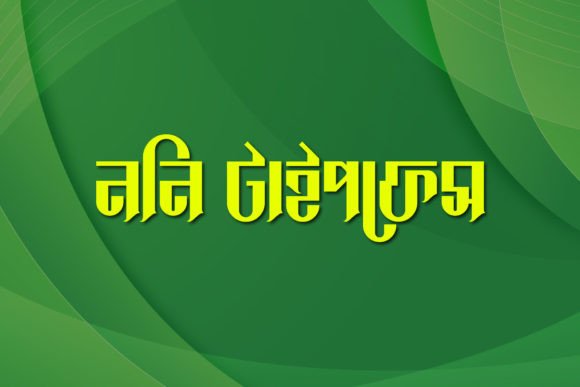
Prepare to be entranced by Noni Font, a display font that commands attention with its air of boldness and grace. This font, carefully crafted by the talented Abuhasnat, is a typographic masterpiece that captivates the eye with its distinct glyphs and meticulously designed characters, creating a visual symphony that dances across your screen.
Immerse yourself in the versatility of Noni Font, a font that effortlessly adapts to a myriad of creative endeavors. Unleash your inner artist and watch as your title headings transform into captivating centerpieces, your chic T-shirt graphics come to life with a modern edge, and your movie or drama names radiate an aura of intrigue. Noni Font breathes life into your projects, leaving an indelible mark on the hearts and minds of your audience.
Step into the realm of elegance with Noni Font, a font that exudes sophistication and charm. Its carefully crafted curves and intricate details evoke a sense of timeless beauty, making it the perfect choice for projects that demand a touch of class. Allow your creativity to soar as you craft wedding invitations that ooze romance, design business cards that leave a lasting impression, or create social media posts that captivate your followers. Noni Font elevates your designs, adding a touch of enchantment to every project you undertake.
Experience the power of expression with Noni Font, a font that empowers you to communicate your message with clarity and impact. Its bold strokes and sharp edges demand attention, ensuring that your words resonate with your audience. Whether you're crafting thought-provoking blog posts, captivating marketing materials, or simply sharing your thoughts on social media, Noni Font amplifies your message, leaving an unforgettable impression on those who encounter it.
Don't settle for ordinary fonts that blend into the background. Embrace the extraordinary with Noni Font, a display font that ignites your imagination and sets your projects apart. Its unique beauty and captivating presence will leave your audience spellbound, turning your creative visions into unforgettable realities.